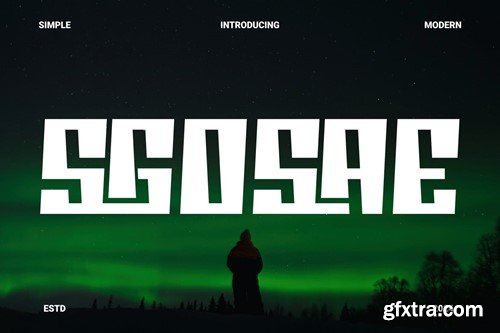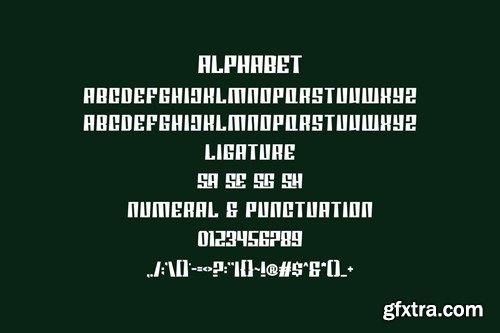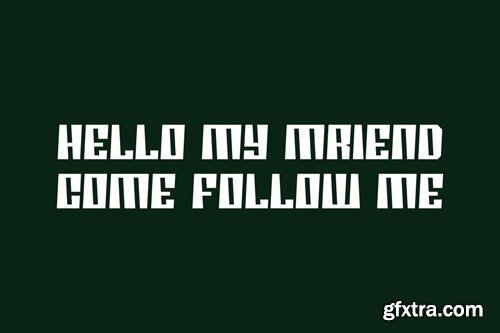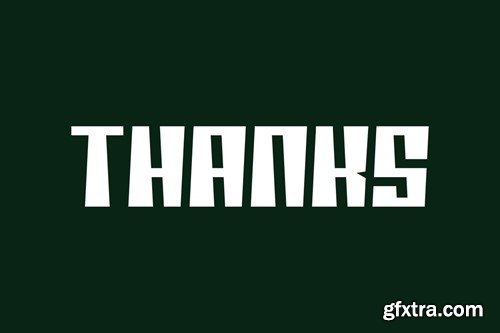
Sgosae A Display Typeface NU5GS48
Sgosae A Display Typeface
Introducing Sgosae Modern Sans Serif. Sgosae is a modern and simple font, best used as a display for headings, logos, branding, magazines, product packaging and invitations. Sgosae come with clean lines and smooth curves give any project an extra touch of class. What you get: Thank you.